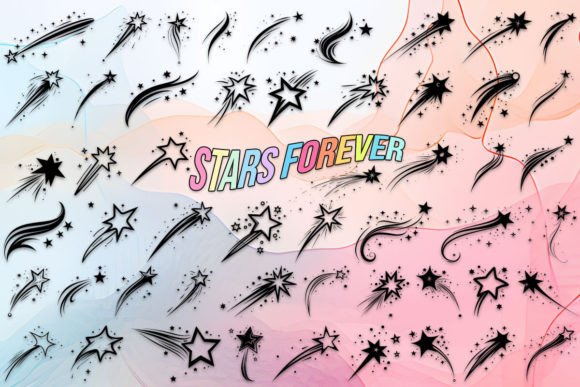
Stars Forever Font
Stars Forever Dingbats Font: A celestial ensemble capturing cosmic brilliance through an assortment of twinkling stars and astral symbols. Perfect for adding celestial charm to designs. Includes uppercase, lowercase letters, and numbers, ensuring versatile and enchanting creative expressions